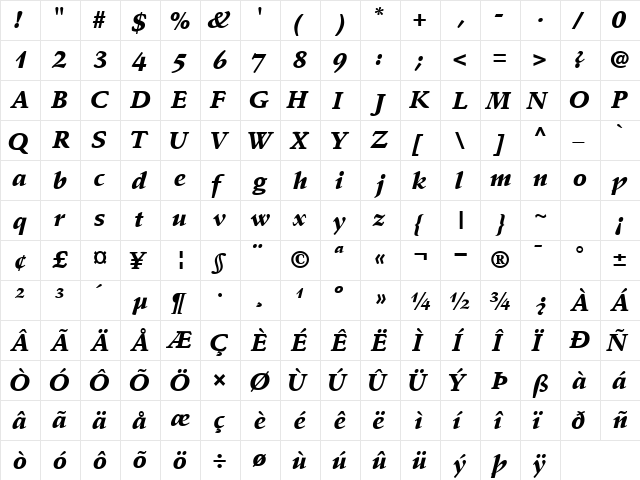
DeutchBlackSSK Italic
Design Context for DeutchBlackSSK Typeface
DeutchBlackSSK offers clean, dependable letterforms without strong stylistic allegiance, making it a practical choice for designers who need flexibility. Its italic angle brings a sense of urgency and motion to the letterforms.
Pro Tip: Use DeutchBlackSSK for emphasis, pull quotes, and subheadings where its slanted energy can add rhythm to the layout.